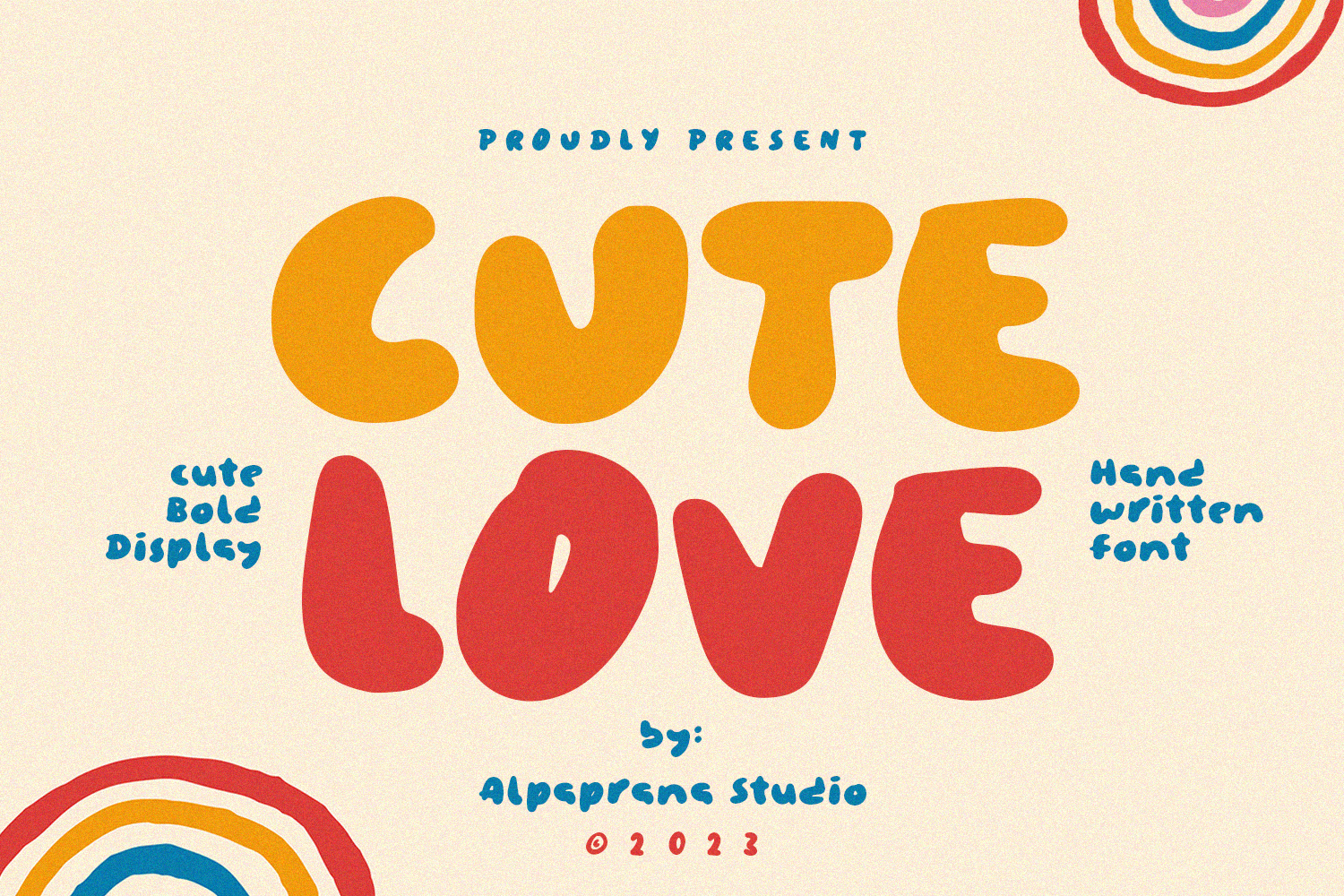
Cute Love - Romantic Display Font
Cute Love is a display font with romantic and modern feels. It will be perfectly used for Branding, Logo Design, Lettering, Logotype, Clothing, Poster, magazine, packaging, posters, shopping bags, t-shirts, book covers, photography, special events and other design project.
- Uppercase & Lowercase
- Numerals
- Punctuations (OpenType Standard)
- Accents (Multilingual Characters)
- Ligatures and Alternative Style Stylistic Set